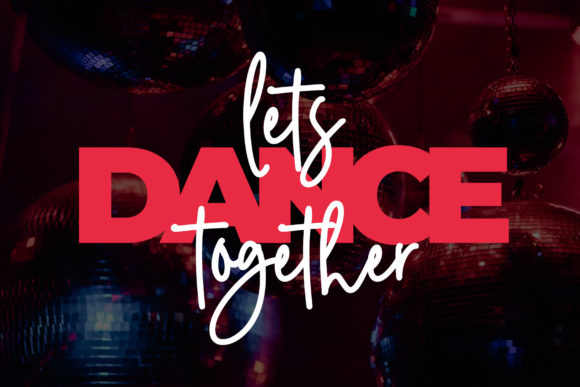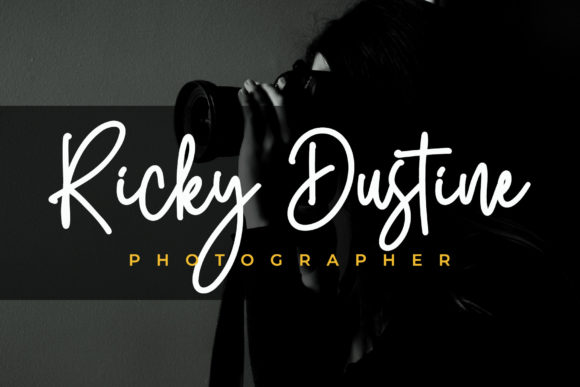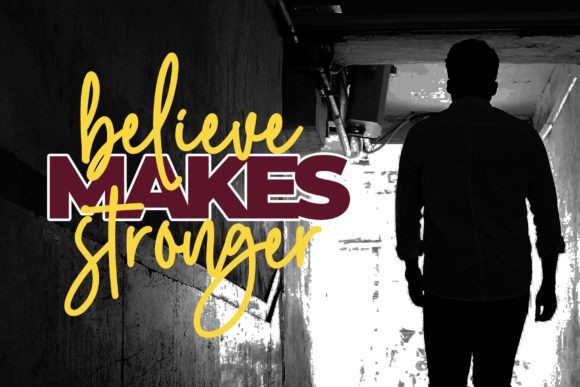
Introduction to All Night Font
All Night is a modern and casual handwritten font.
It is elegant and classy yet it maintains its relaxed vibe All Night is the perfect font for any projects, such as wedding invitation, signature, branding, crafting, sticker, sublimation, farmhouse label, and various other design ideas.